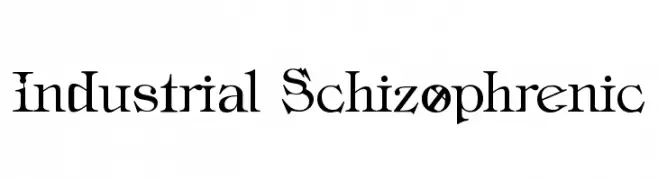
A modern, geometric sans-serif font with clean lines and uniform strokes.
A vintage, distressed font with an antique, hand-crafted appearance.
A bold, hand-painted style font with dynamic, irregular strokes and a condensed form.
A sleek, modern italic sans-serif font with smooth curves and consistent strokes.
A playful, hand-drawn font with irregular, exaggerated letterforms.
A playful and quirky font with irregular, dynamic letterforms.